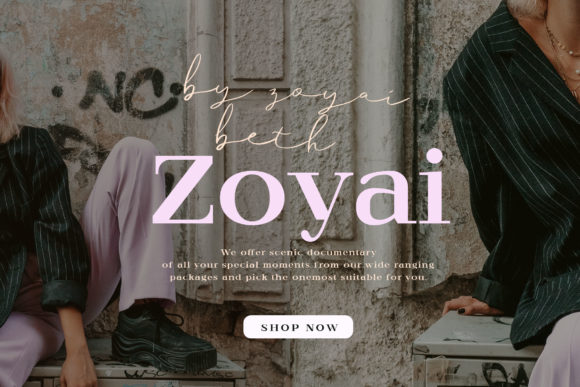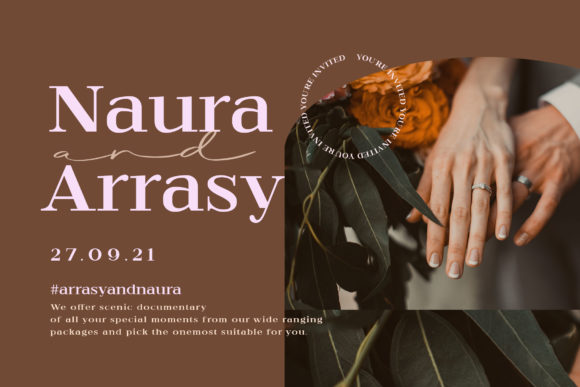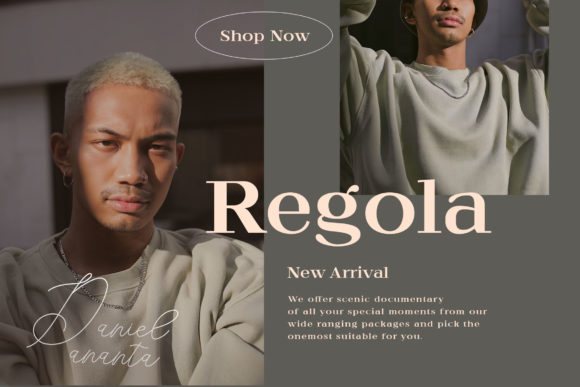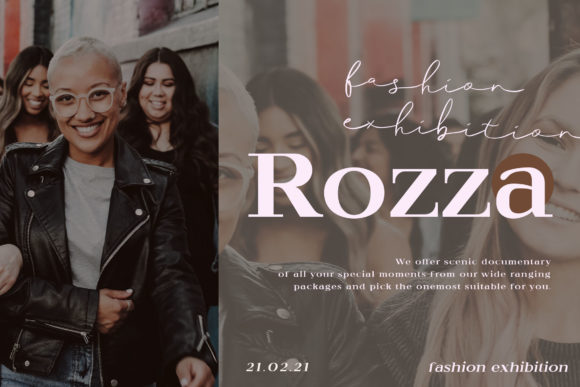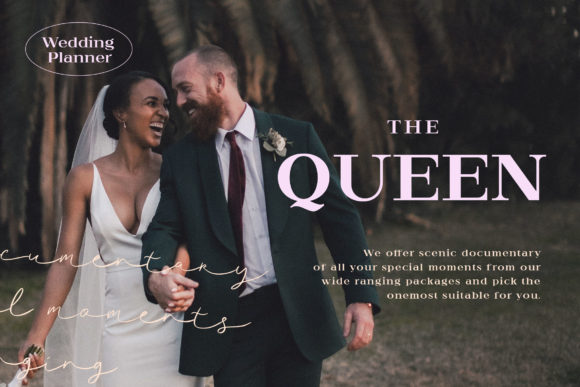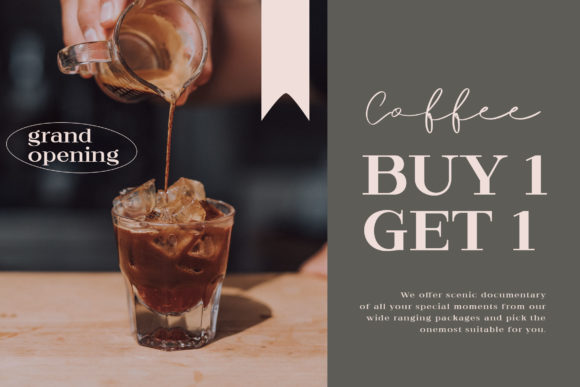
Introduction to Melgizr Font
Melgizr is an exquisite and modern serif font, just perfect for fashion-related projects or other exquisite crafty ideas.
Use it for luxury logos, branding, classy editorial design, woman magazines, cosmetic brands, art gallery branding, boutique branding, and many more .